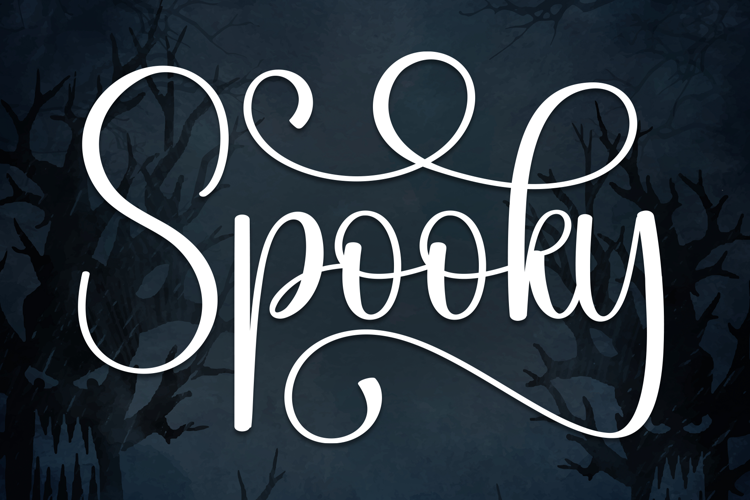
Halloween Elegance - Elegant Spooky Script Font
Pretty meets spooky in Halloween Elegance! This graceful script font combines flowing curves, tall loops, and subtly sharp details for lettering with an enchanting Halloween feel.
Use it for Halloween invitations, gothic celebrations, greeting cards, shirts, seasonal signs, and scrapbook titles. Its elegant handwritten style brings a touch of mystery to your festive phrases and hauntingly beautiful designs.